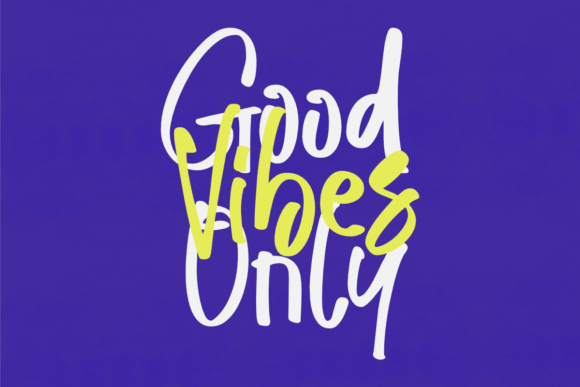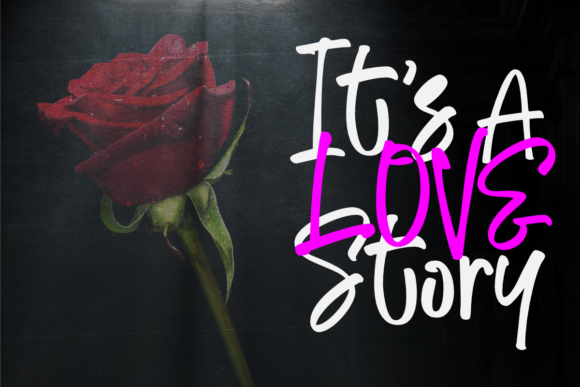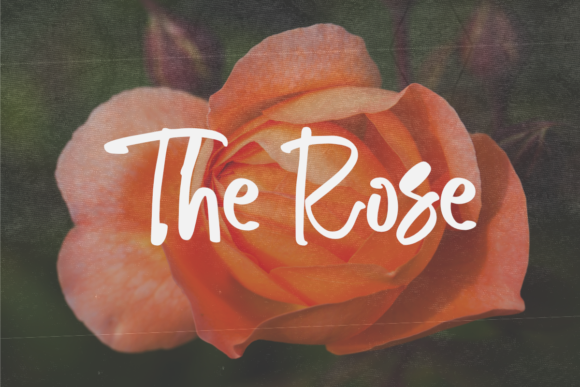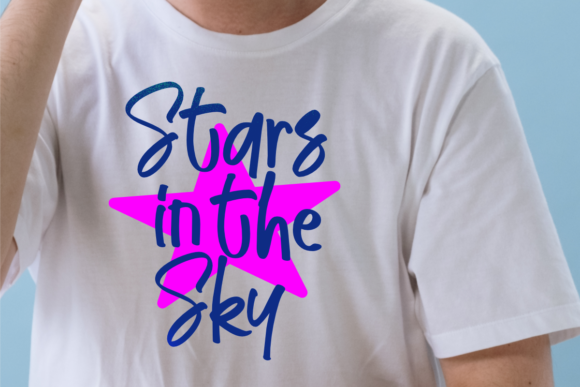
Unleashing Your Creativity with Blessed Efforts Font
Have you ever found yourself in a creative rut, struggling to convey the perfect message or emotion through your design? I know I have. Sometimes all it takes is the right font to breathe new life into our projects. For me, that font is Blessed Efforts.
Blessed Efforts is a charming, informal handwritten font that effortlessly adapts to any project. Its simplicity is its greatest strength, allowing it to effortlessly elevate your designs and leave a lasting impression. With its PUA encoding, you’ll have access to a wide range of glyphs and swashes, giving you endless possibilities to experiment and express yourself.
Blessed Efforts Font Key Features
- Font Family: Blessed Efforts Font offers a unique, hand-drawn design with a modern twist, making it ideal for creative projects.
- Font Size: Blessed Efforts Font comes in multiple weights, ranging from 100 to 900, allowing for precise control over typography.
- Resolution: Designed at 300 DPI, ensuring crisp and clear text at high resolutions.
- Language Support: Supports over 200 languages, making it a versatile choice for global projects.
- Unique Characteristics: Features a distinctive, organic feel with subtle imperfections, adding a touch of personality to any design.
Blessed Efforts Font Review
As a designer, I was excited to dive into the Blessed Efforts Font and see what it had to offer. Overall, I’d say it’s a solid choice for projects that need a touch of whimsy and charm.
- The font’s eclectic feel makes it perfect for projects that need a unique touch.
- The range of weights and styles available allows for a lot of creative flexibility.
- The font’s friendly and approachable vibe makes it great for use in body copy and headings.
- The font may not be suitable for projects that require a more formal or professional tone.
- The character set is limited, which may cause issues for non-English language projects.
- The font’s irregularities can sometimes make it difficult to read at small sizes.
Overall, I’d give the Blessed Efforts Font 3.5 out of 5 stars. It’s a great choice for projects that need a playful and charming feel, but may not be the best fit for more formal or complex designs. With a bit more development and refinement, I think this font has a lot of potential to become a go-to choice for designers looking for a unique and engaging font.
To get the most out of the Blessed Efforts font, try using it in combination with other design elements to create a unique and eye-catching look.
Consider using the font in bold or italic styles to add emphasis to your text.
The Blessed Efforts font is perfect for use in:
2. Baby shower invitations and decorations.
3. Social media graphics and advertisements.
4. Branding and marketing materials.